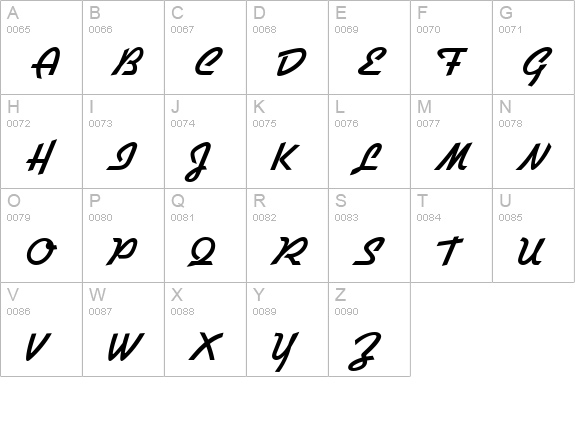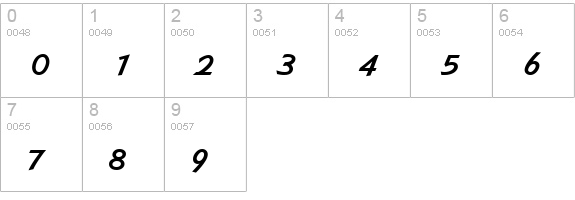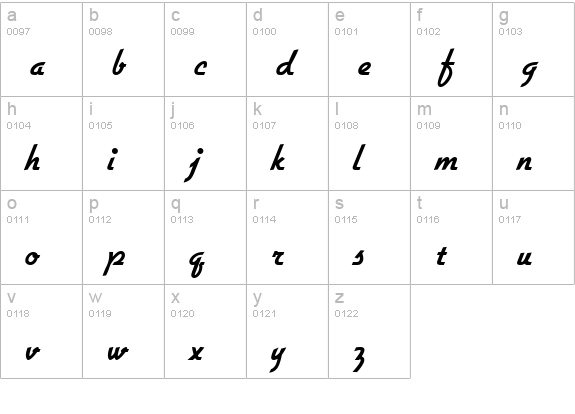
Introducing GilliesGotDBol font, a bold and striking typeface designed to make your text stand out with a touch of modern elegance. This font is perfect for adding a touch of sophistication to your projects, whether it be for branding, advertising, or any other design needs. With its strong, clean lines and stylish curves, GilliesGotDBol font is sure to make a lasting impression. And the best part? GilliesGotDBol font is completely free to download at FontsMarket.com. That's right, you can enhance your designs with this stunning font without any cost. So why wait? Download GilliesGotDBol font today and elevate your projects to the next level.